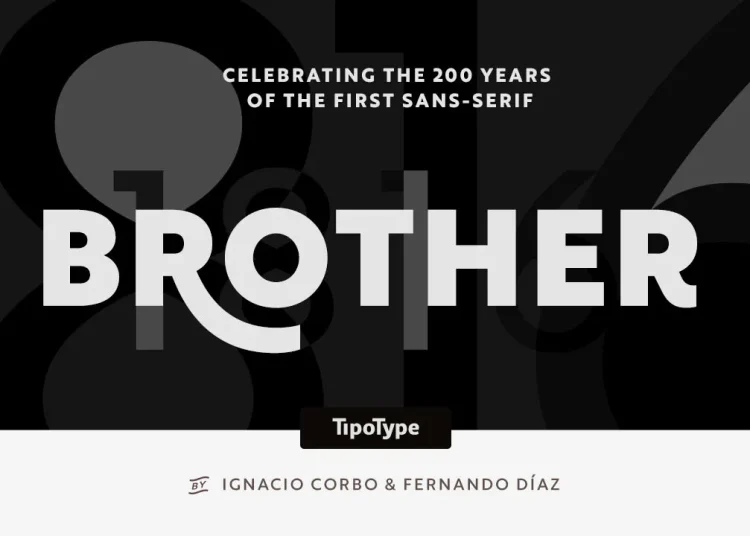
Brother 1816 Font
Brother 1816 is a commemorative typeface celebrating 200 years since the creation of the original sans-serif typeface. This versatile and multi-faceted font combines geometric forms with humanistic strokes, providing a striking contrast and endless styling possibilities.
Key Features of Brother 1816:
• Versatile Design: Brother 1816 merges geometric precision with humanistic warmth, offering a range of styles from pure geometric to more humanistic forms. This allows you to choose or mix over 20 different characters to achieve the perfect look for your project.
• Applications: The typeface is ideal for various uses:
• Editorial: Its clear readability at small sizes makes it perfect for editorial headlines and posters.
• Branding: Both the geometric and humanistic styles add unique personality to branding materials.
• Signage: Its adaptability ensures visibility and impact in signage applications.
• Styling Options: Brother 1816 includes:
• Two Main Groups: Standard (16 weights) and Printing (16 weights), providing a total of 32 font options to suit a wide range of needs.
• Alternate Characters: Over 20 alternate characters for enhanced design flexibility.
• Comprehensive Character Set: 460 characters including straight and angular edges, swashes, ordinals, fractions, and more.
• Design Specifications:
• Geometric and Humanistic Forms: Choose between a purely geometric style or a more humanistic approach.
• Readability: Designed with anthropocentric characteristics for easy reading at small sizes.
• Screen Adaptability: Includes clear instructions for optimal performance across various screen resolutions, ensuring clarity on both large and small displays.